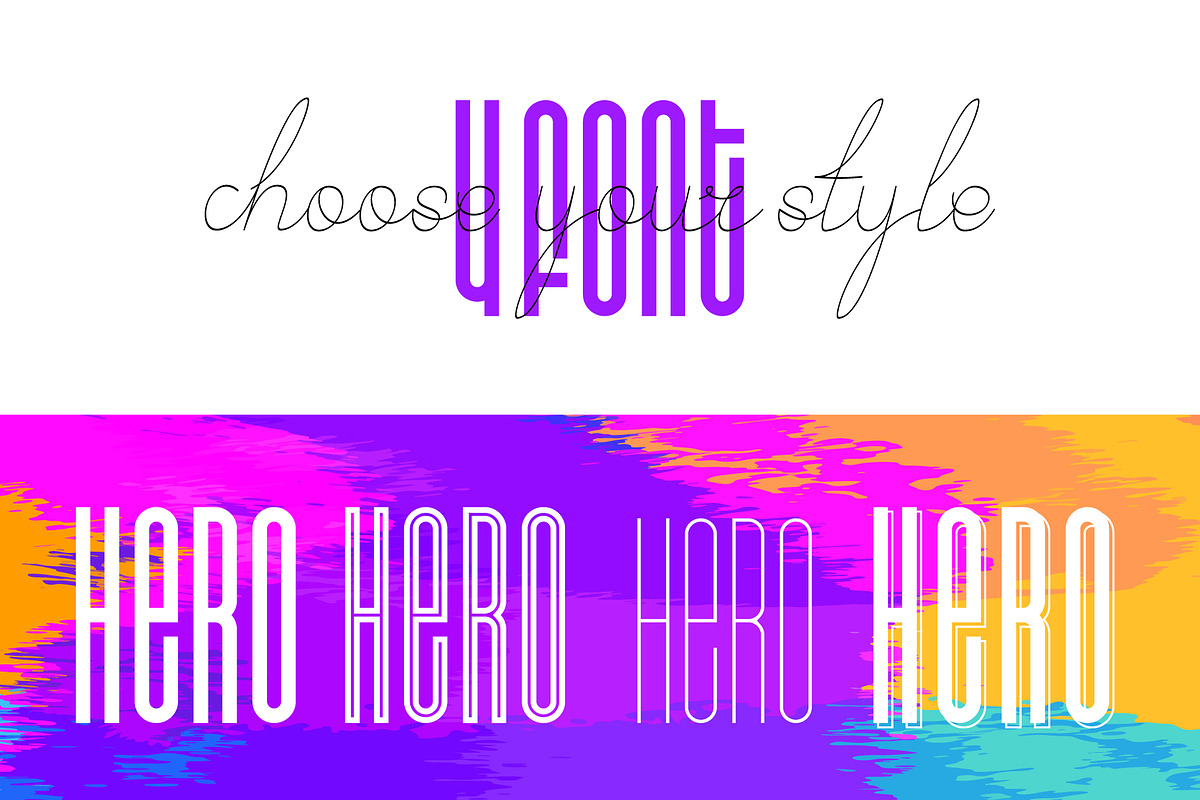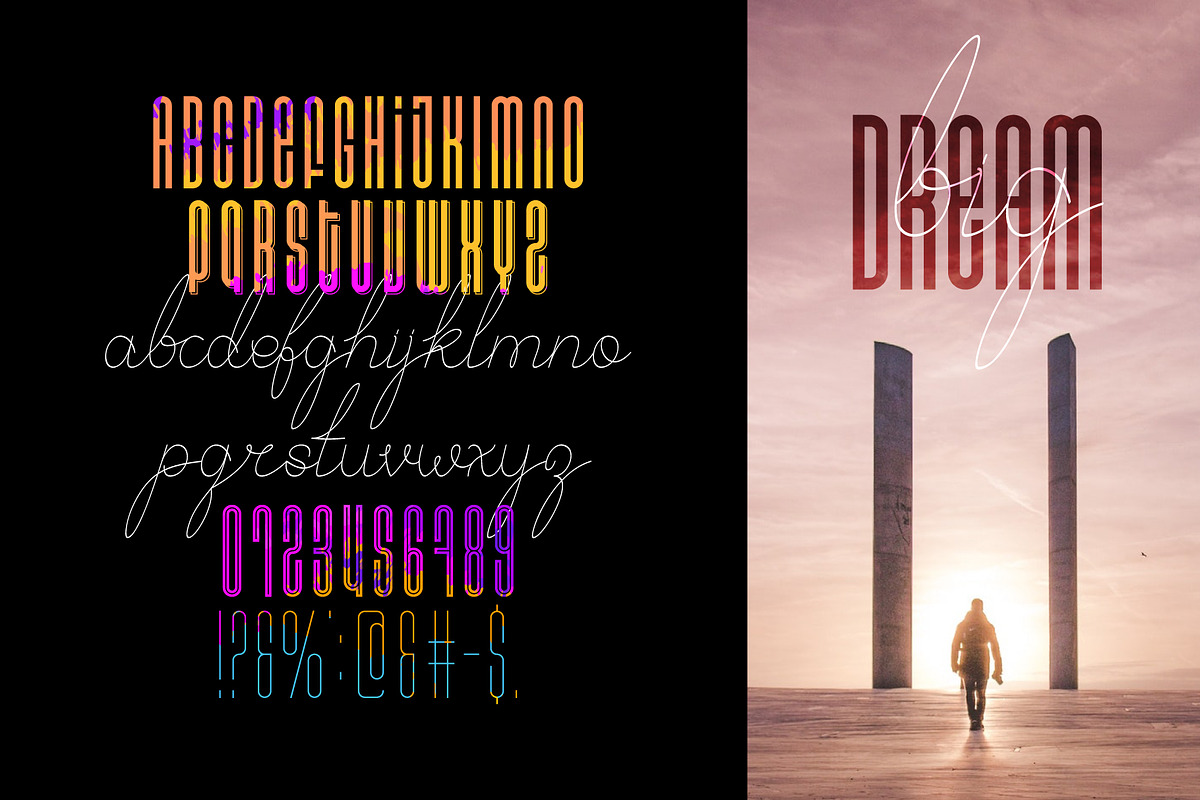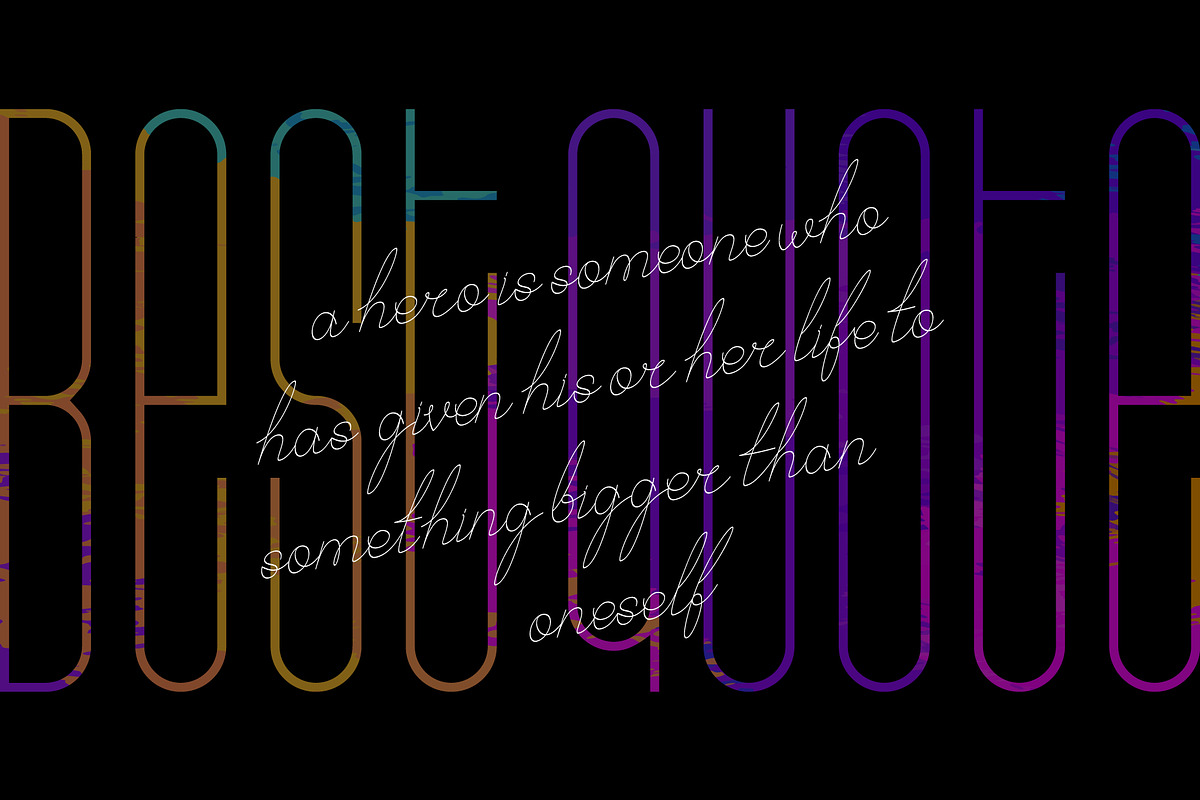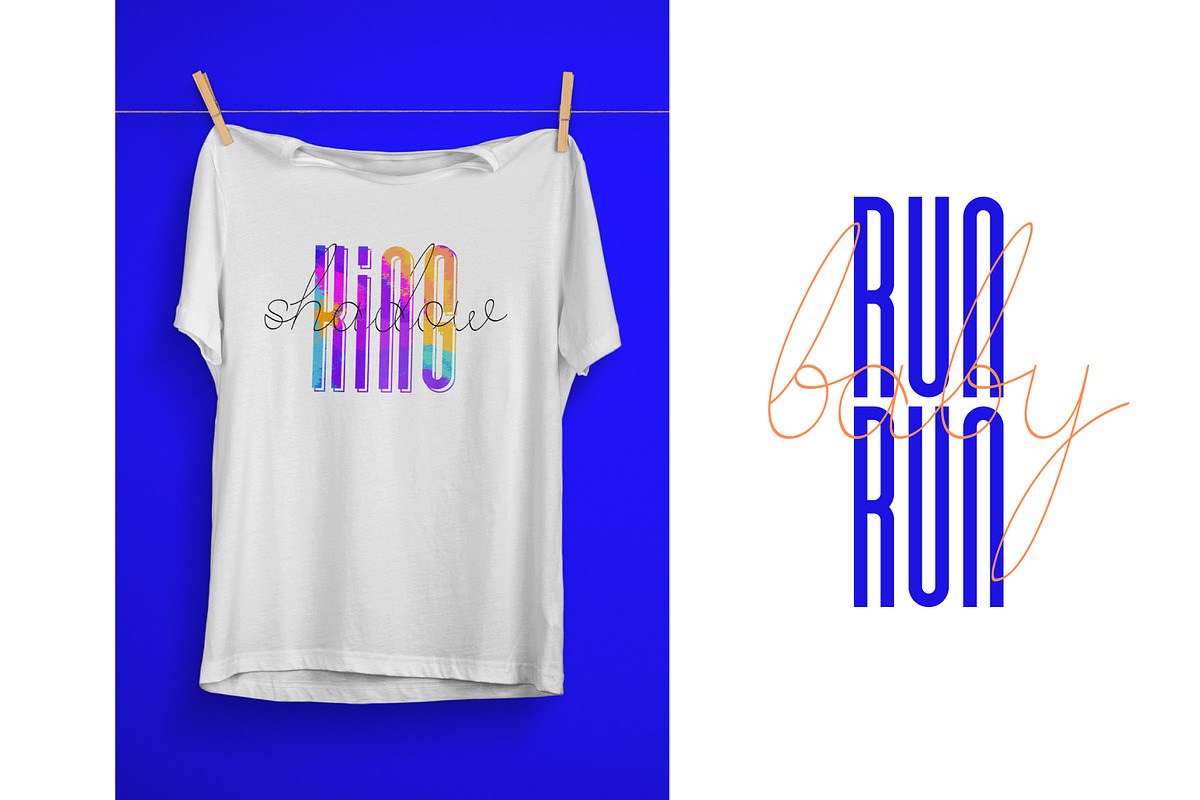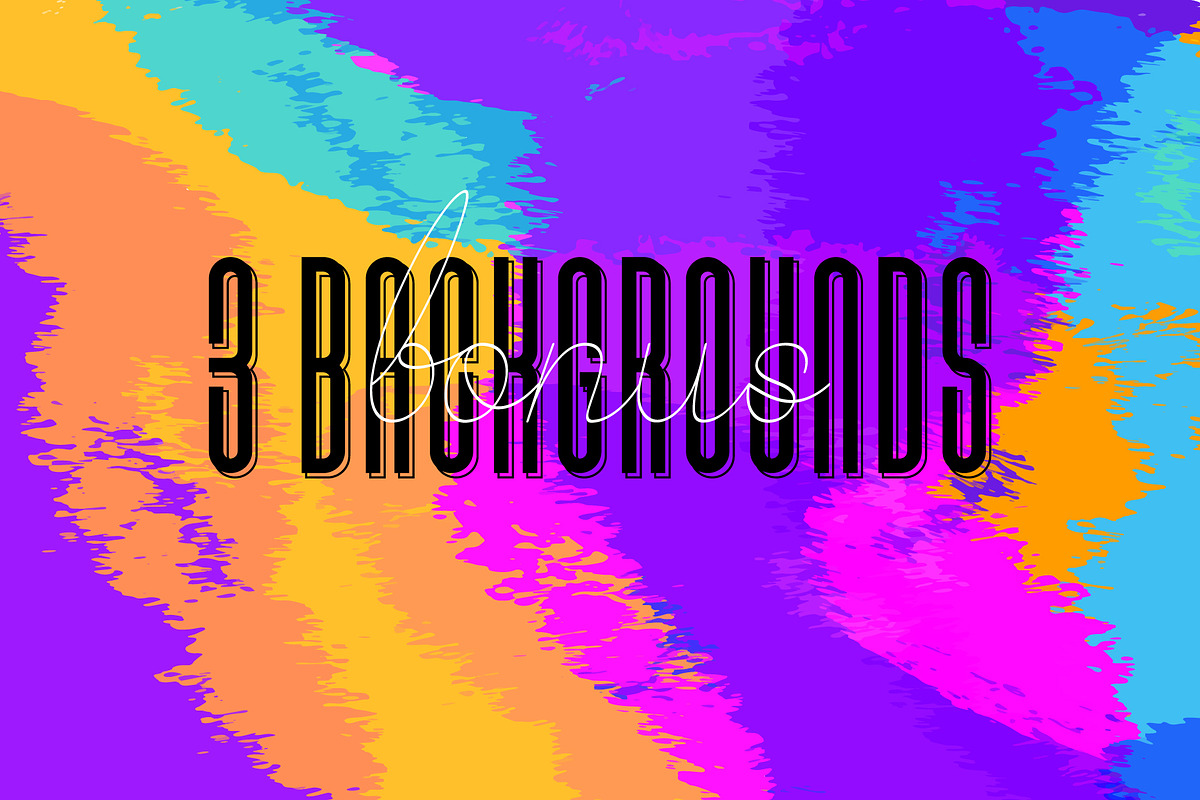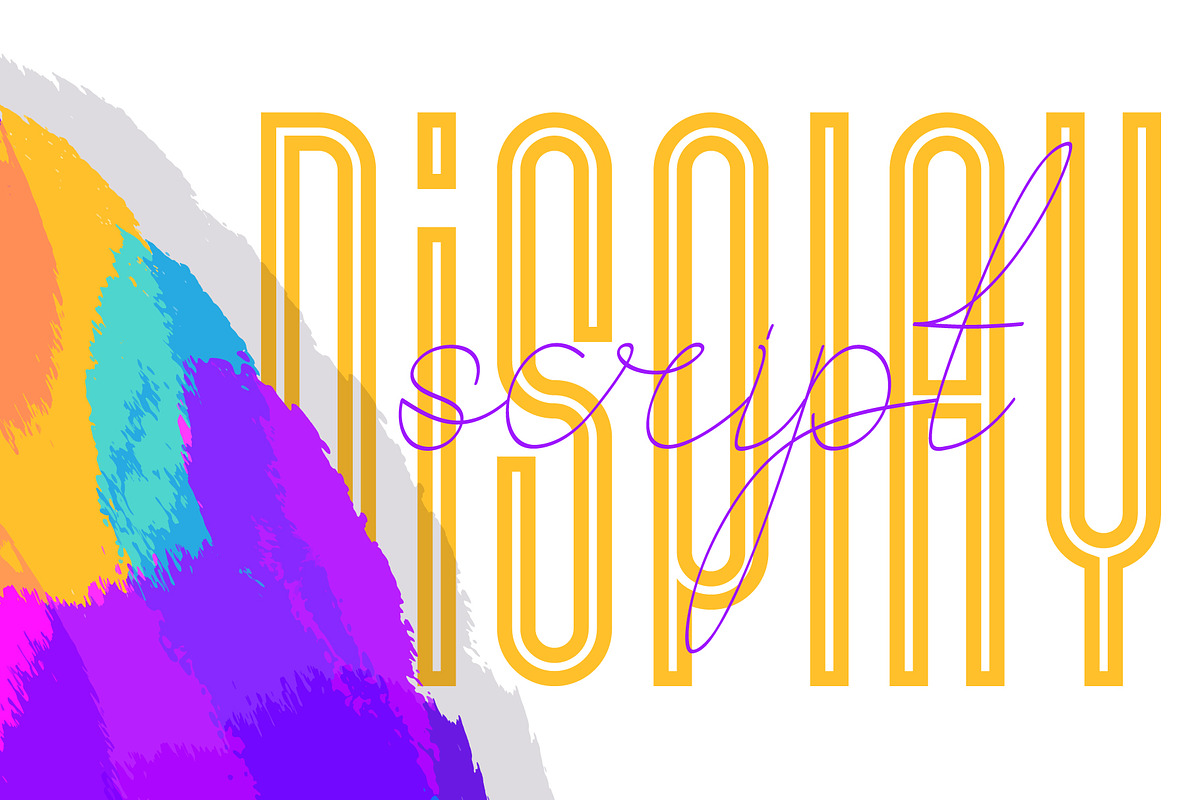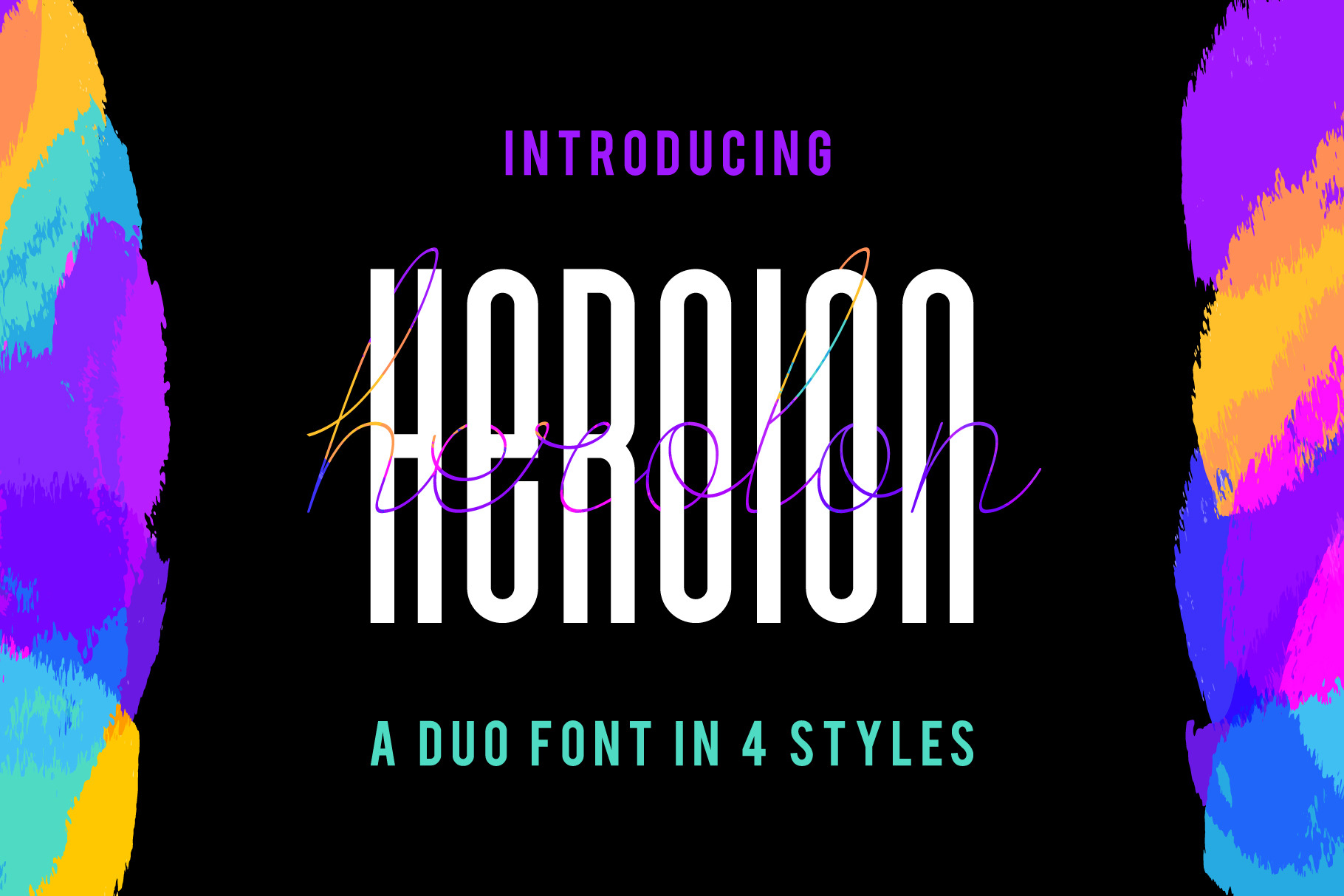
Herolon Font Duo
The Herolon is a display and script duo which comes in 4 different styles. It has stylish and simple characters and is perfect for holiday or travel-themed designs, headings, signature’s, logos, wedding invitations, t-shirts, letterheads, signage’s, labels, and much more!
- Geometric upper case letters in 4 styles.
- Lower case letters - handwritten and the same in all 4 variants.